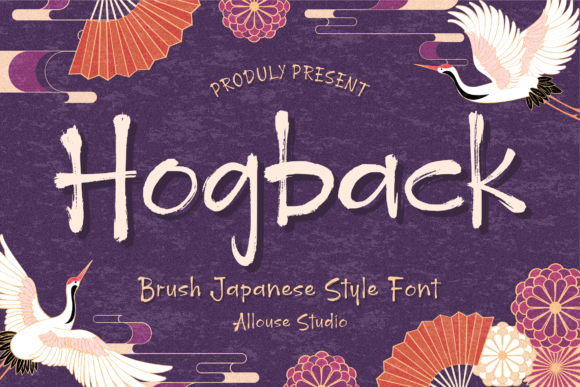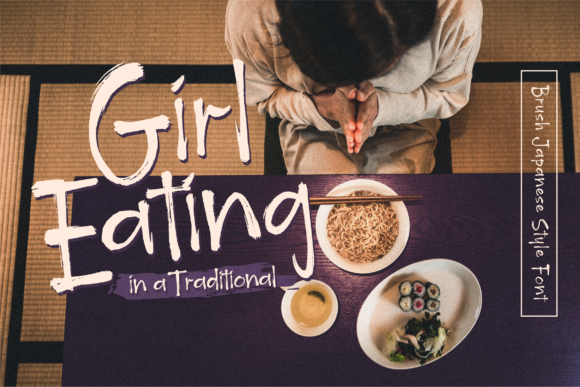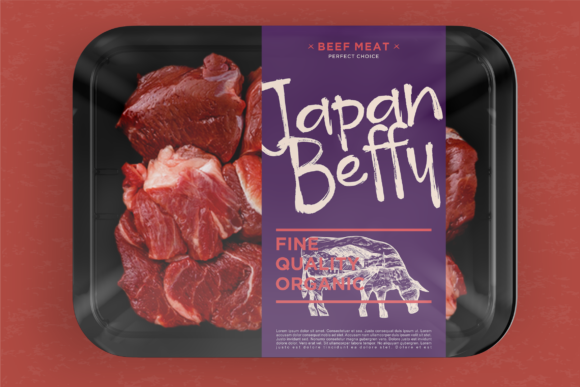
Hogback Font
Hogback is a cool, casual and interesting brushed display font. It can fit a variety of urban designs or projects, so add it confidently and you will love the results.